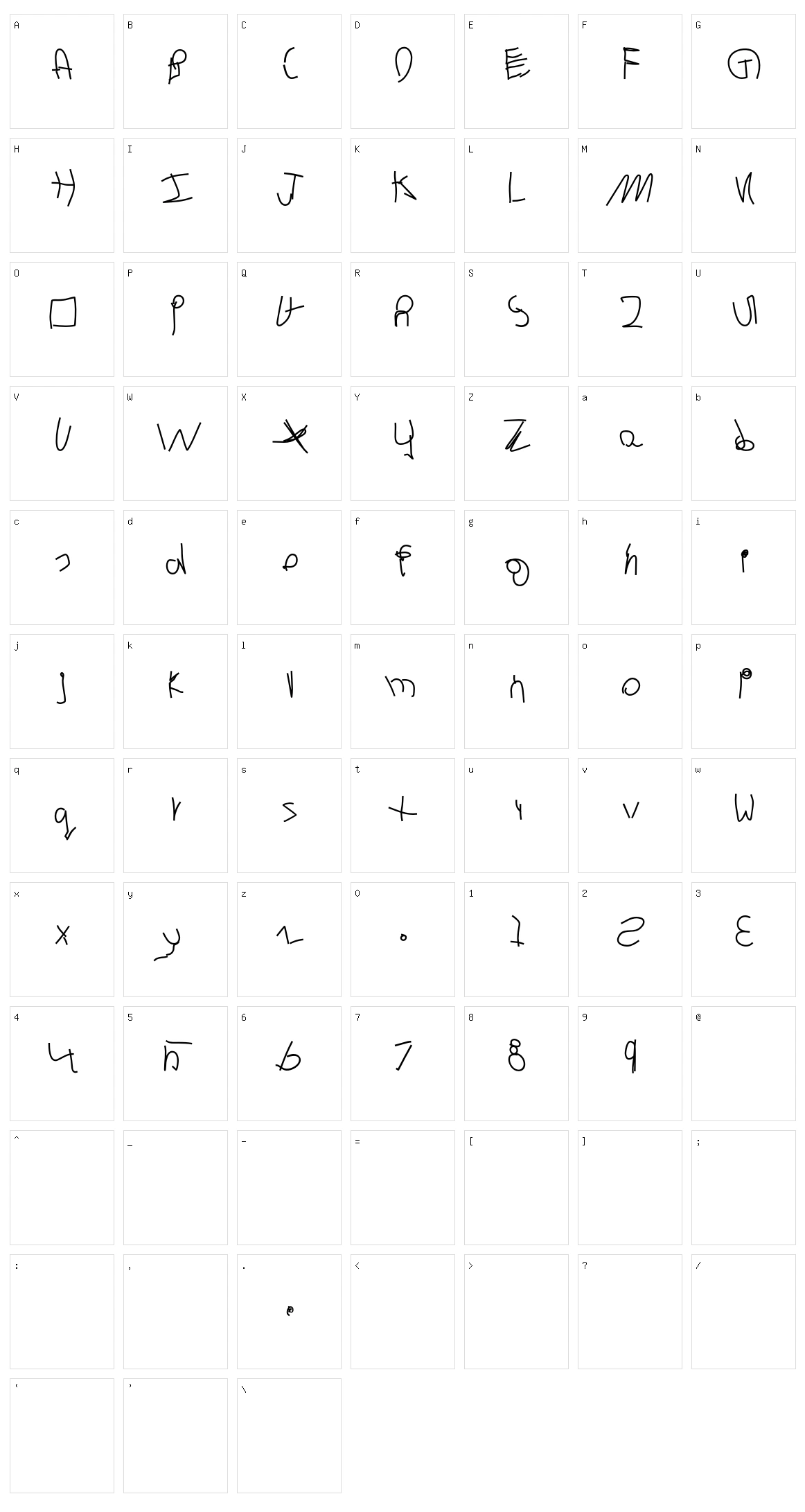
Evan : A child typeface
Released in the exhibition:
'There was once a typographer in all of us'
17 September â 15 October 2011
Typography is considered to be a specialist field, one that most of us donât dedicate much thought to. When we read, the complexities of letters and their arrangements often escape our scrutiny. We take them for granted. As children, however, we were all at some point something of a young typographer or type designer. To learn to write, we faced the initial task of carefully studying the letters of the alphabet and learning to form each one. Slowly we all mastered our own unique typeface.Â
Over time writing by hand becomes completely automatic to us. It is easy to forget that handwriting is a skill, one that does not come naturally, but rather, one that is slowly developed and ingrained in us in our younger years. As we learn to write, the aim is to ultimately acquire a balance of legibility and speed, and for this process to become entirely habitual. It is with a certain poignancy that the point at which many children finally achieve this aim is probably also the point at which most cease to be actively engaged in typography, for having mastered writing itself, focus then shifts weight to the writingâs content.
Notes on Evan:
The typeface Evan stemmed from an investigation into common issues that arise when children are developing their handwriting. Each letter sample chosen to inform Evan contained at least one element in its formation that is generally considered to be problematic for writing.
Evan is based on lettering by children aged 5 â 8. Overall, there were three main reasons for why a letter sample was selected:
1). The letter lacked certain identifying visual features. Either, the letterâs construction was so loose that it verged on losing its form, such as the letter sample âeâ, or essential features were missing and the resulting form risked being confused with other letters, as seen with the letter sample âsâ. Other examples arose when the letter had been confused with its capital version, which is evident in the letter sample âwâ, or when the letter had been inverted, such as with the letter sample âcâ.
2). The letter had been formed in a manner that is impractical for its construction. For example, the letter was composed of unnecessary strokes or movements, as depicted in the letter samples âEâ and âZâ respectively; or the letter showed an unusual construction such as with the letter samples âpâ and âgâ.
3). The letter had been formed in a manner that is impractical for writing. For example, forming the letter from right to left instead of left to right, as with the letter sample âHâ. Similarly, forming the letter from the bottom to the top instead of the top to the bottom, as with the letter sample âoâ, where its circular shape was begun and completed towards the bottom. The issue with these methods of construction is that they end with the pen or pencil in a location from which it is not ideal for the writer to continue to draw a subsequent letter. This can then be a hinderance for learning cursive handwriting as well as for simply trying to write at a proficient pace.Â
Each letter sample was traced using a separate stroke to correspond to each line the child drew. Given that each sample was produced by a different child, with a different writing utensil, and at a different scale, this method was preferable to using original scans as it offered consistency. This method was also chosen to help direct focus to the form of the letter, rather than the pressure of the pen or pencil. Due to the differences in the childrenâs handwriting, both the size of the letters and the spacing between them were not taken into account when choosing samples.* Minor adjustments were also made to the sizing and positioning of the letters to enable a sense of uniformity for the typeface as a whole. This was balanced against an effort to maintain the integrity of the original samples.
Evan is a near complete and functional typeface. Samples of all the lowercase, uppercase and number characters were found, as was a full stop. All other characters are missing from the typeface.
*
An exception for this is the sample for the number â0â, which was chosen specifically because of its size in relation to the other numbers that particular child wrote.Â